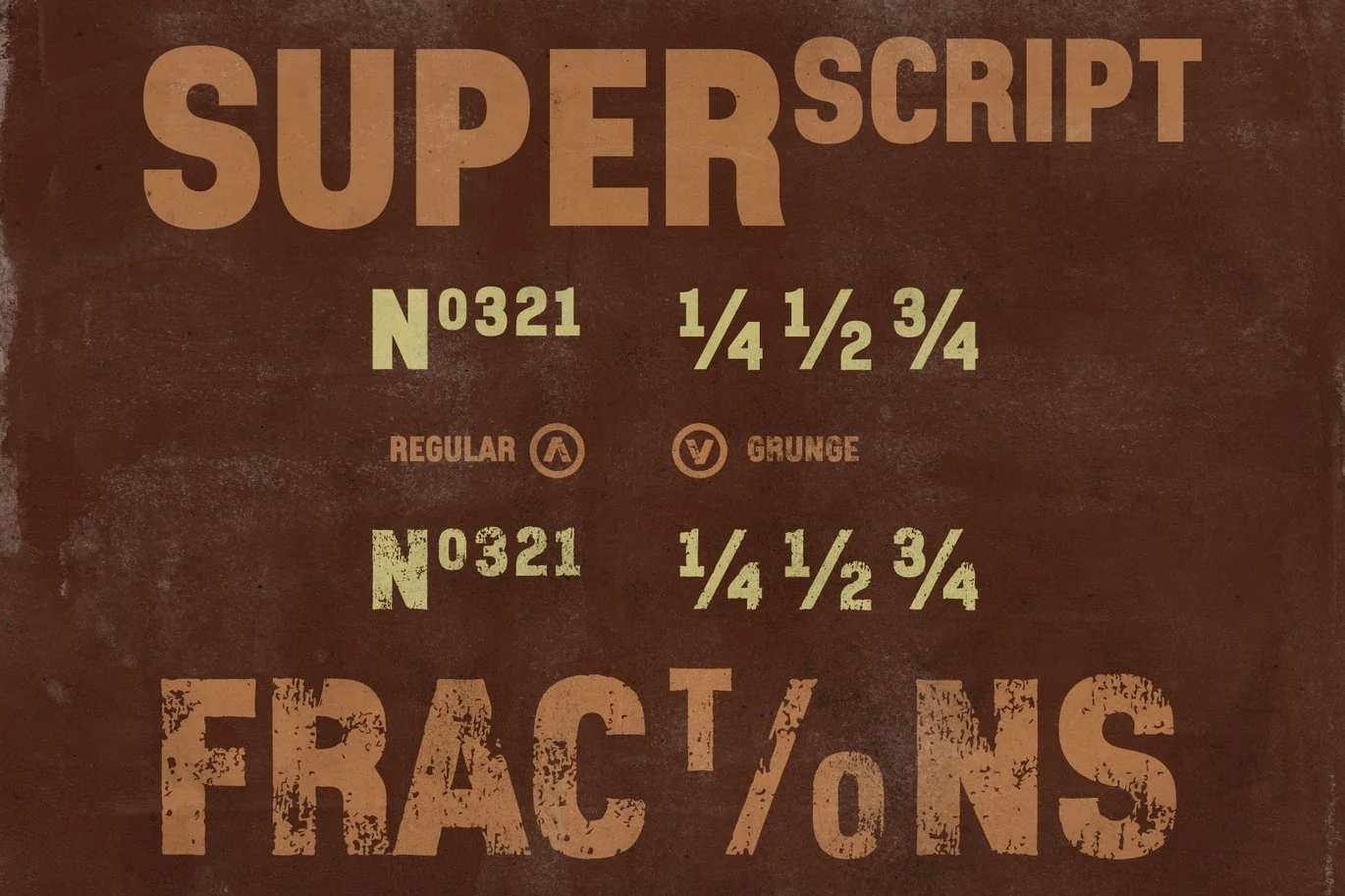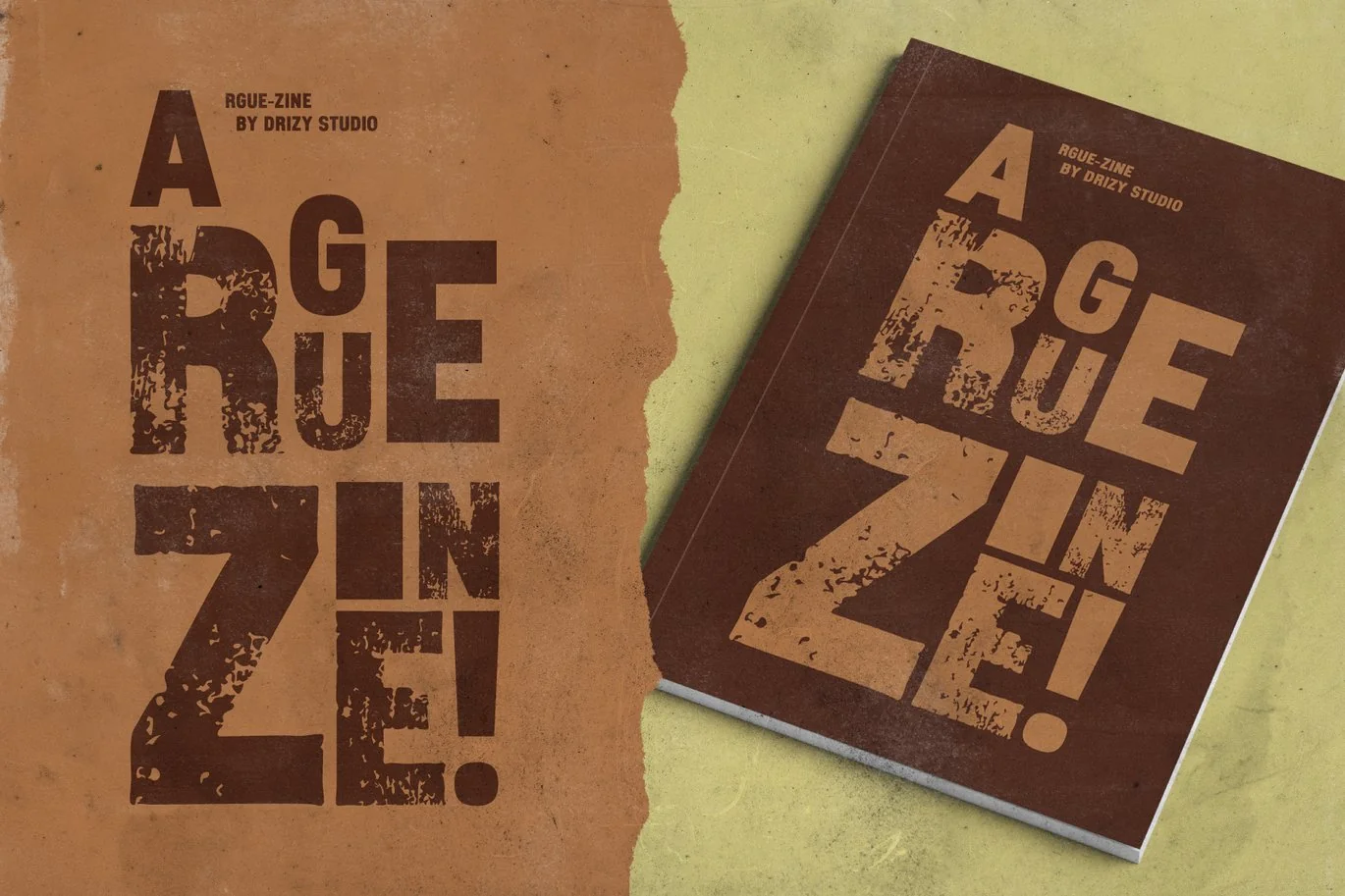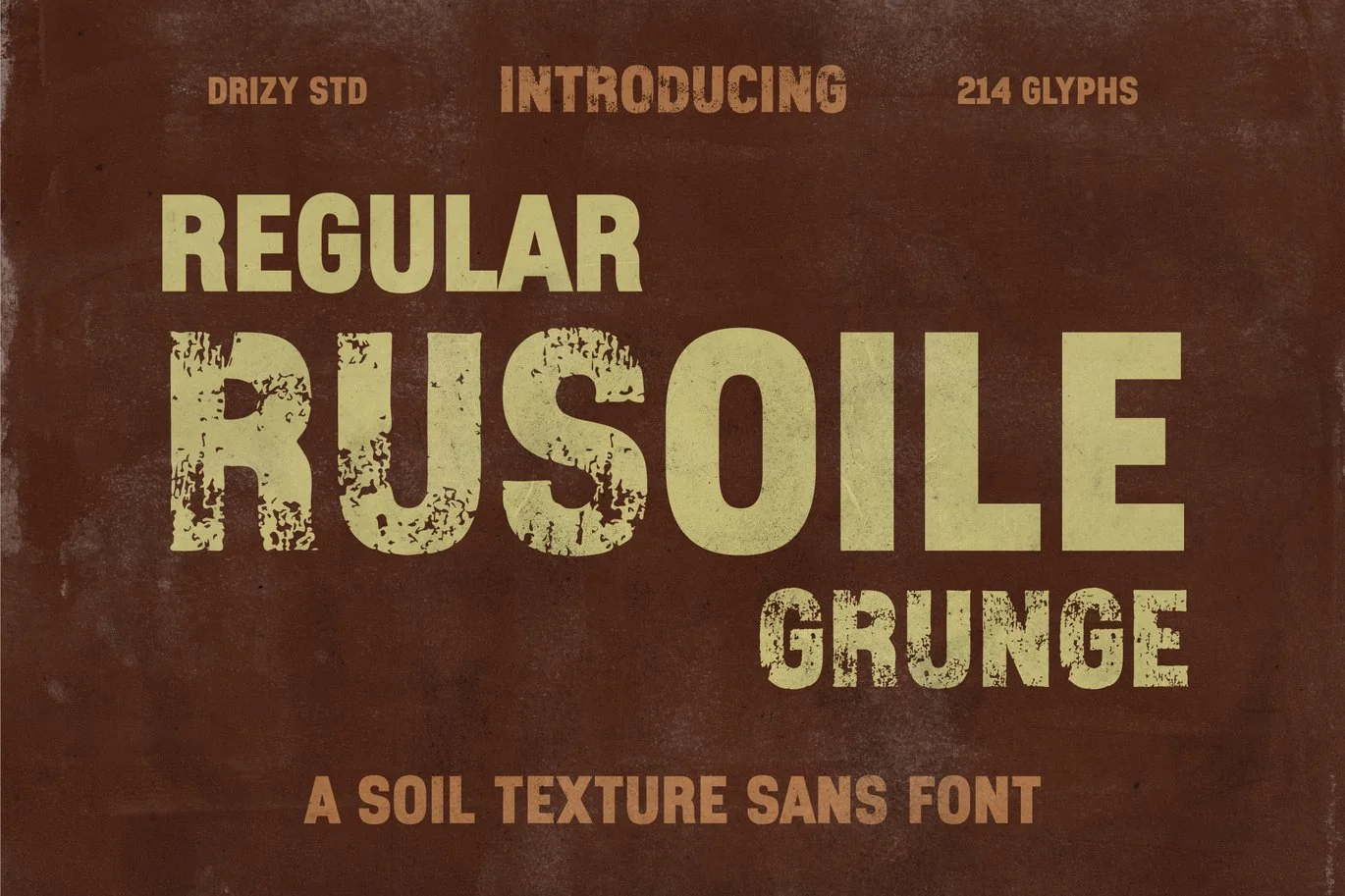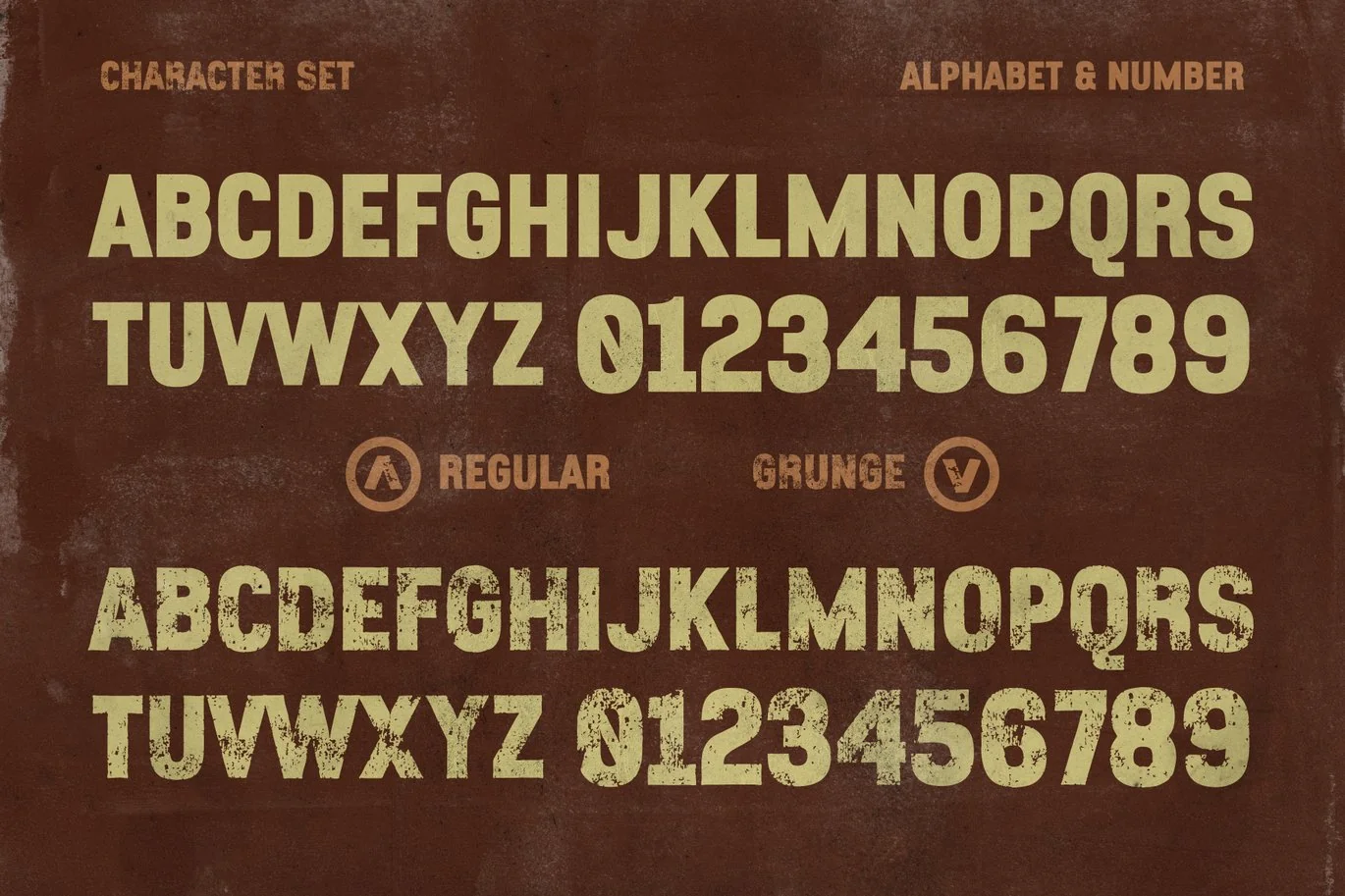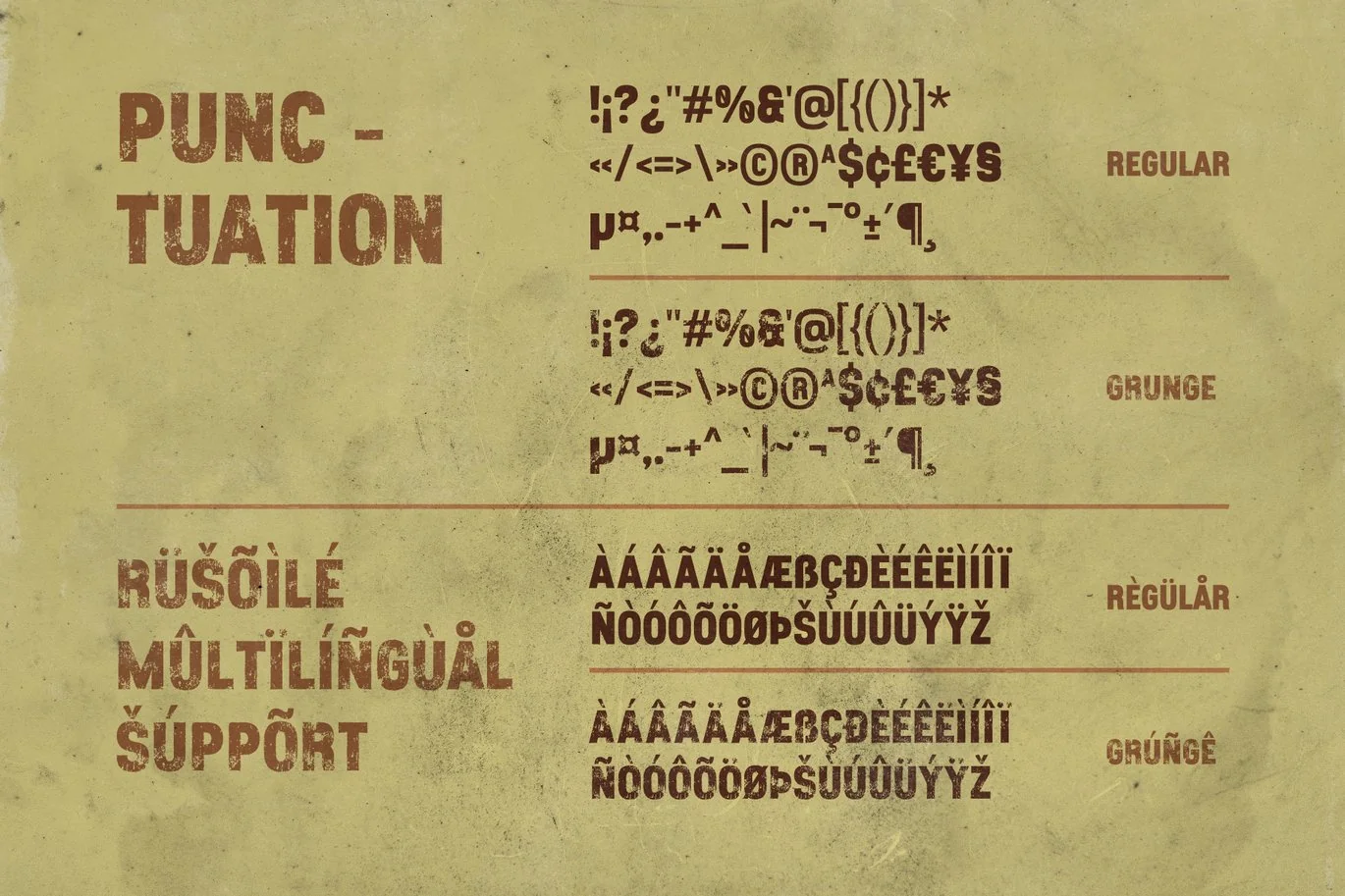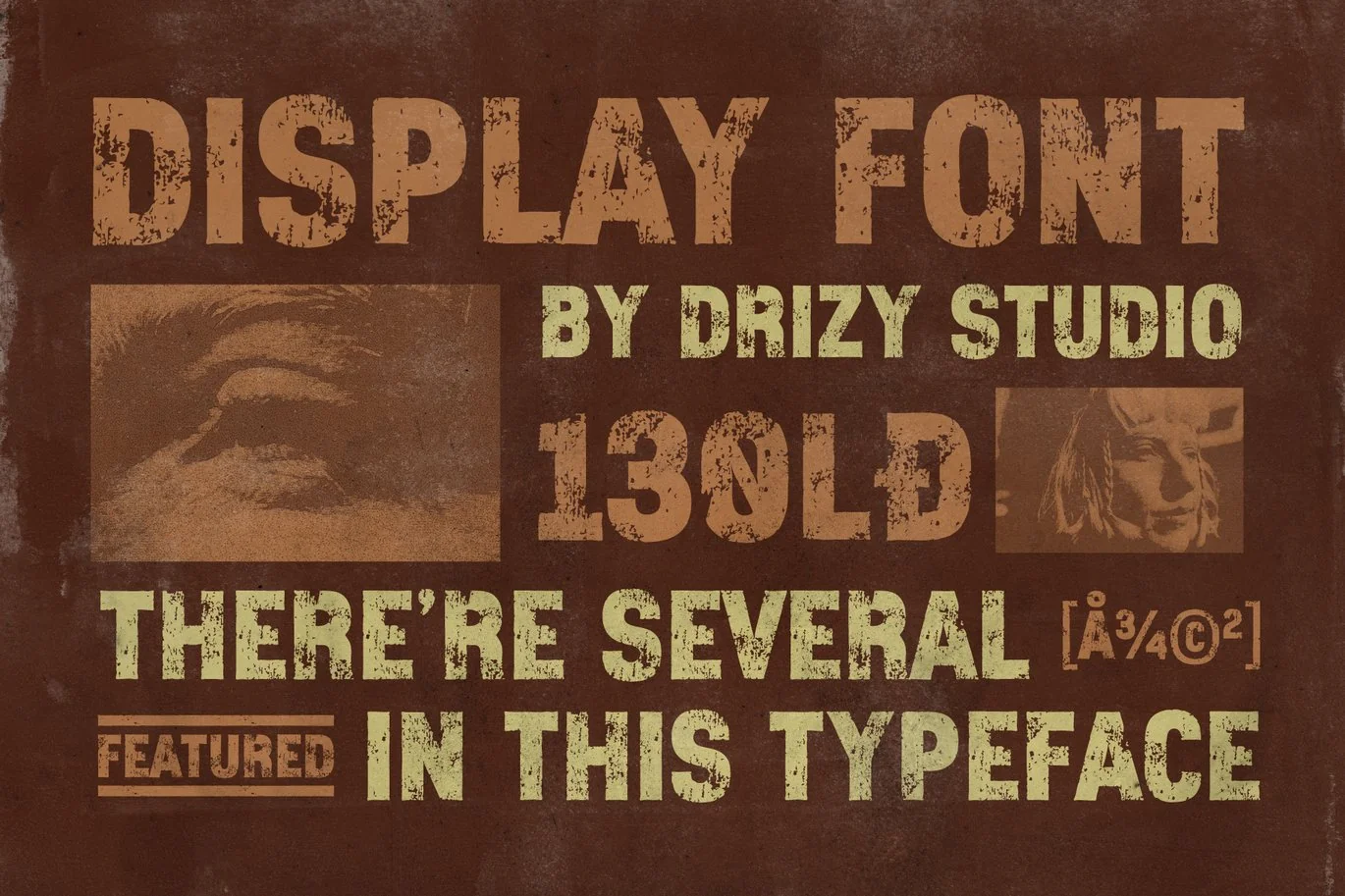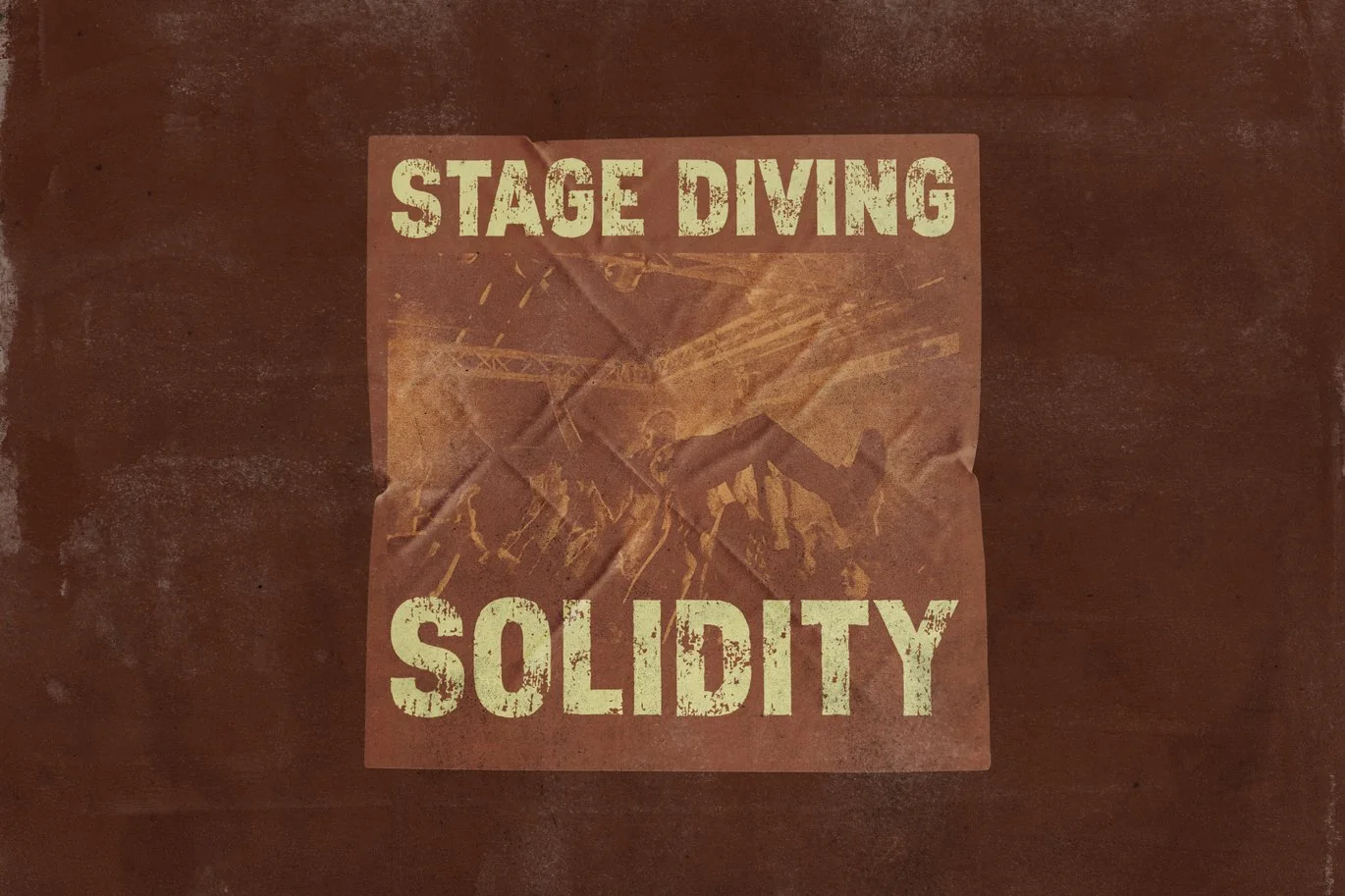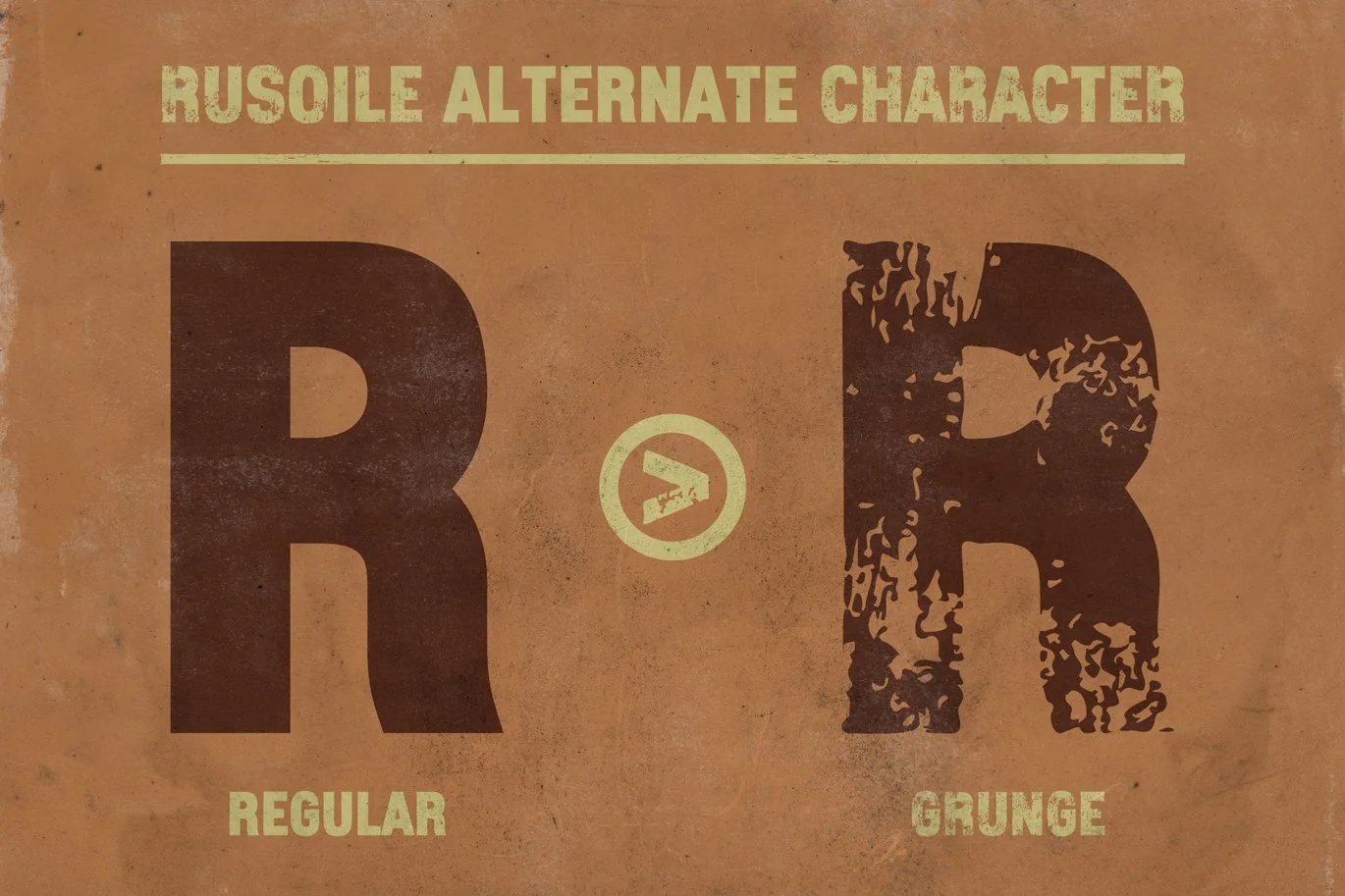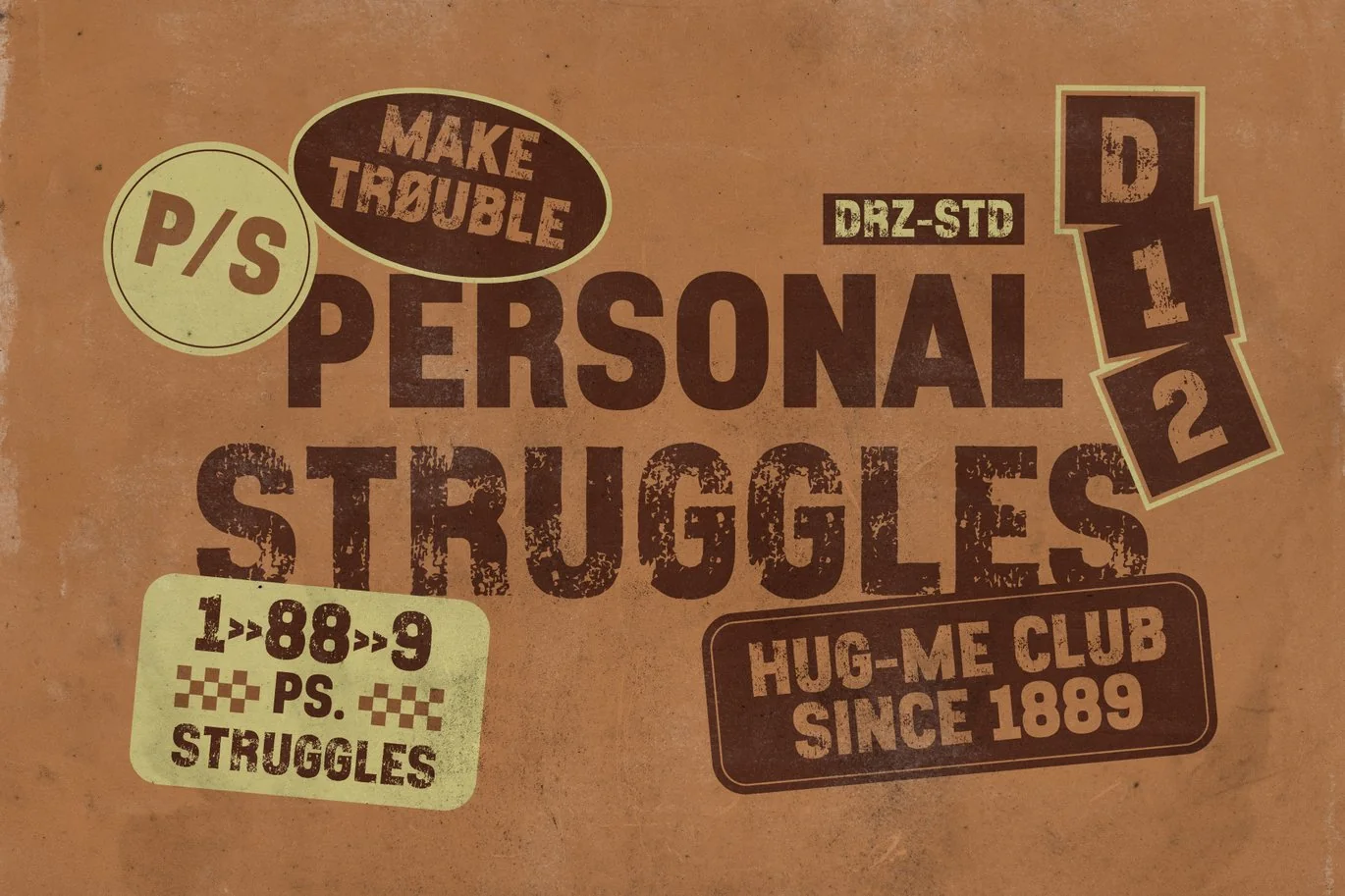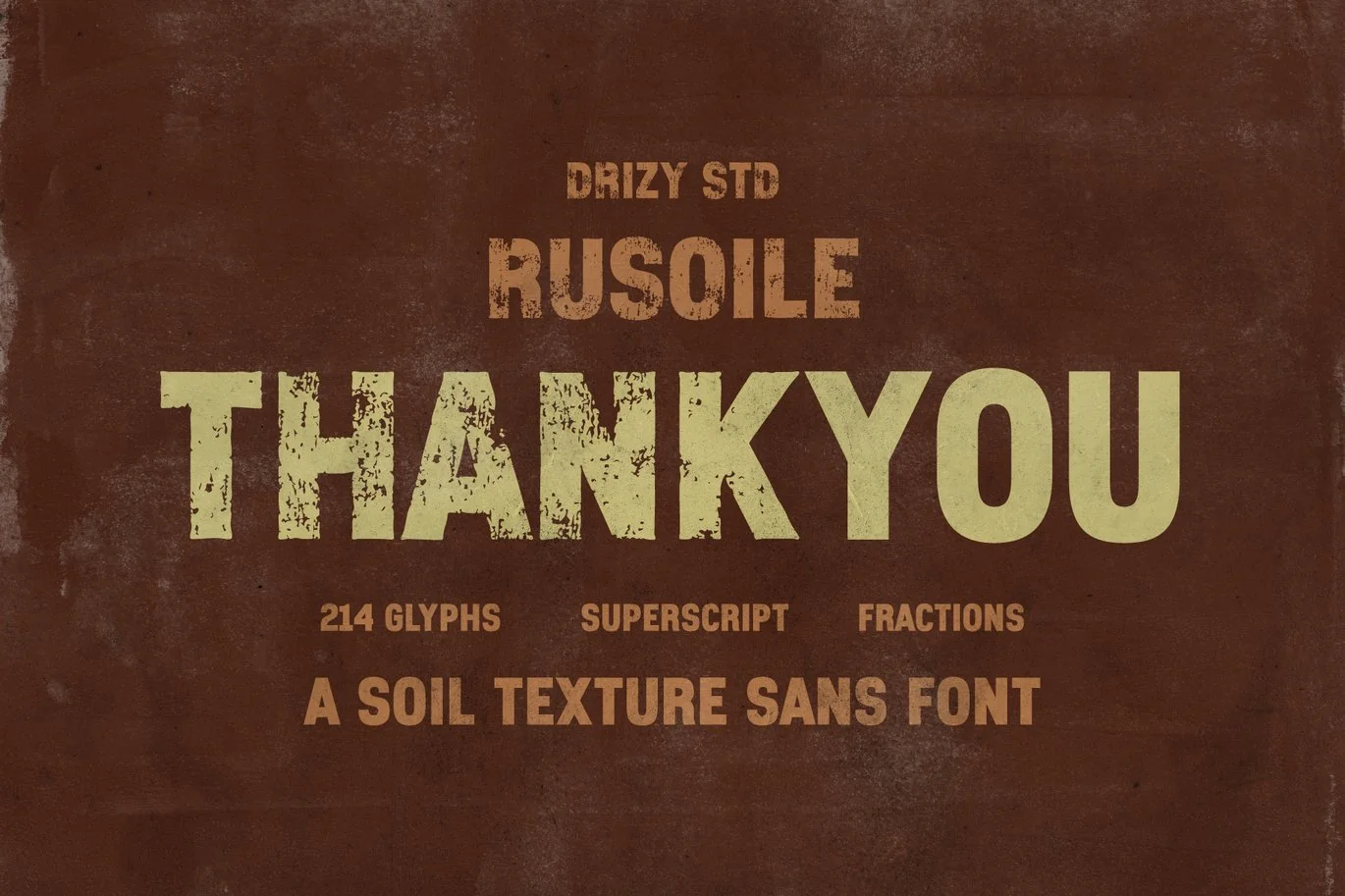
Rusoile – Soil Texture Sans Font
Rusoile is not just a font, it’s a journey into the earthy textures of soil. Inspired by the natural world, Rusoile brings a unique blend of elegance and ruggedness to your typography. Each letter is meticulously crafted to embody the intricate patterns found in soil, adding depth and character to your designs.
Rusoile features:
Character Set (All Caps)
Variable : Grunge & Regular